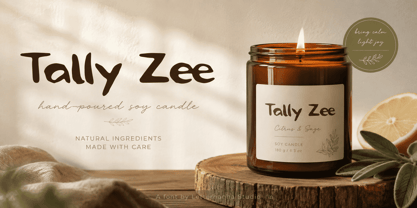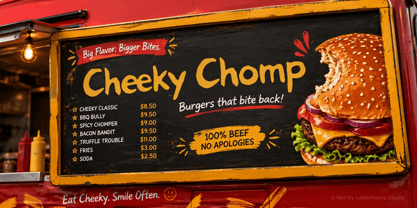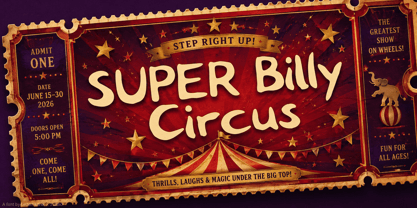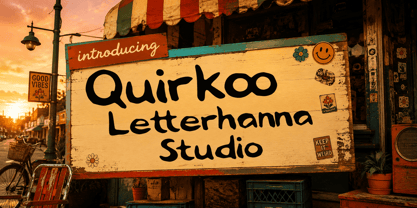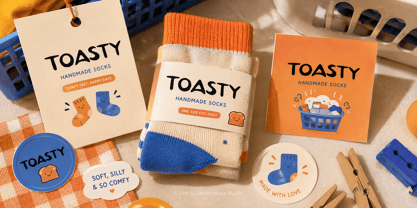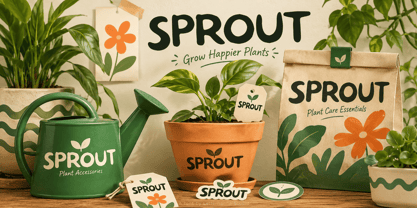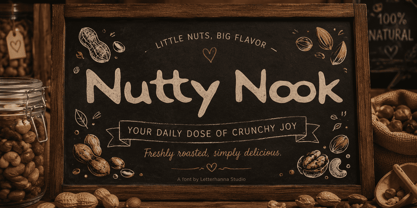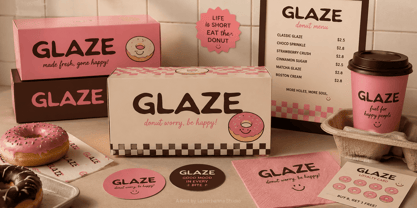
Quirkoo
La famille de polices Quirkoo a été conçue par Rinaldo Hasibuan et publiée par Letterhanna Studio. Quirkoo contient 1 styles. En savoir plus sur cette famille
Some fonts simply deliver words. Others walk into the room first. Quirkoo belongs to the second group. With chunky shapes, uneven contours, and a distinctly hand-drawn rhythm, this quirky font turns ordinary lettering into something expressive, cheeky, and impossible to ignore.
Designed with an intentionally imperfect personality, Quirkoo avoids the polished stiffness found in many display faces. Its letters feel drawn rather than engineered. Curves wobble, terminals bend, widths shift, and the baseline moves just enough to create a lively sense of motion. The result is not messy for the sake of being messy. Every irregularity helps the alphabet feel human.